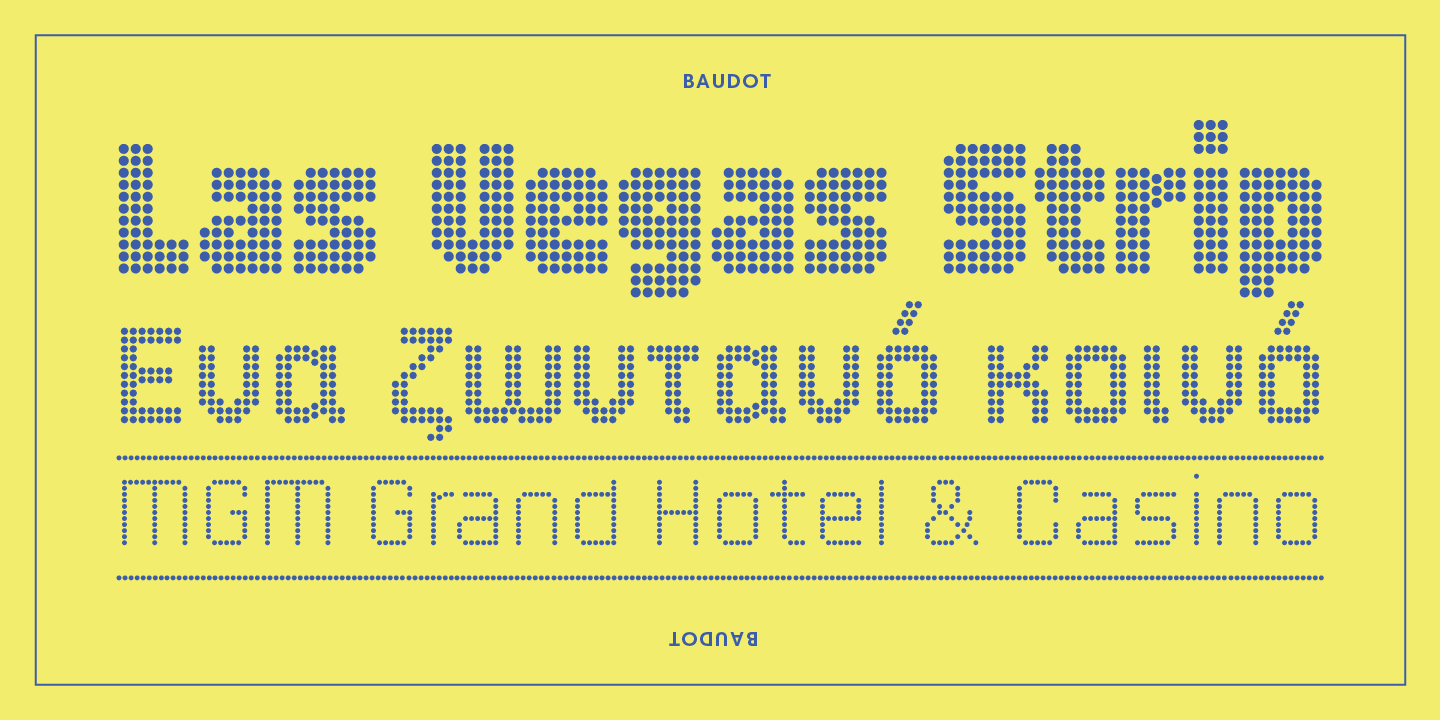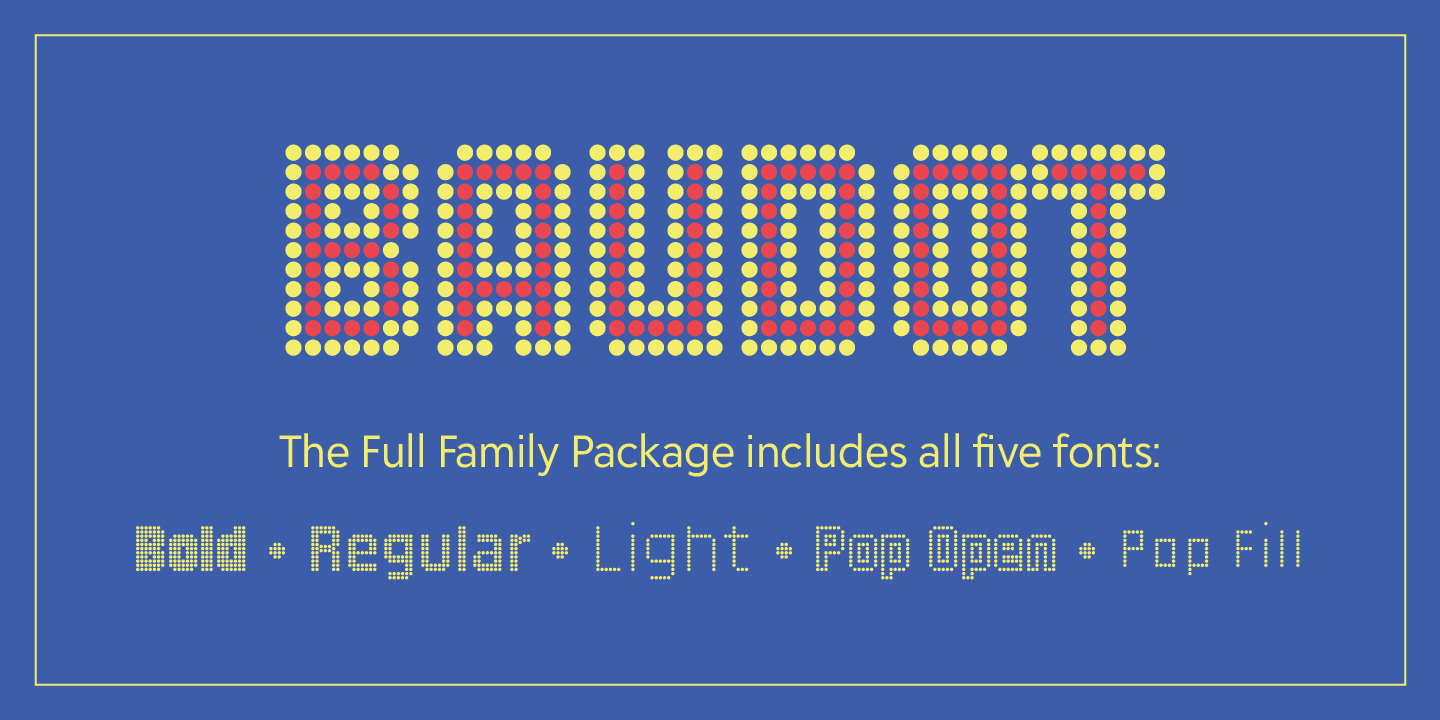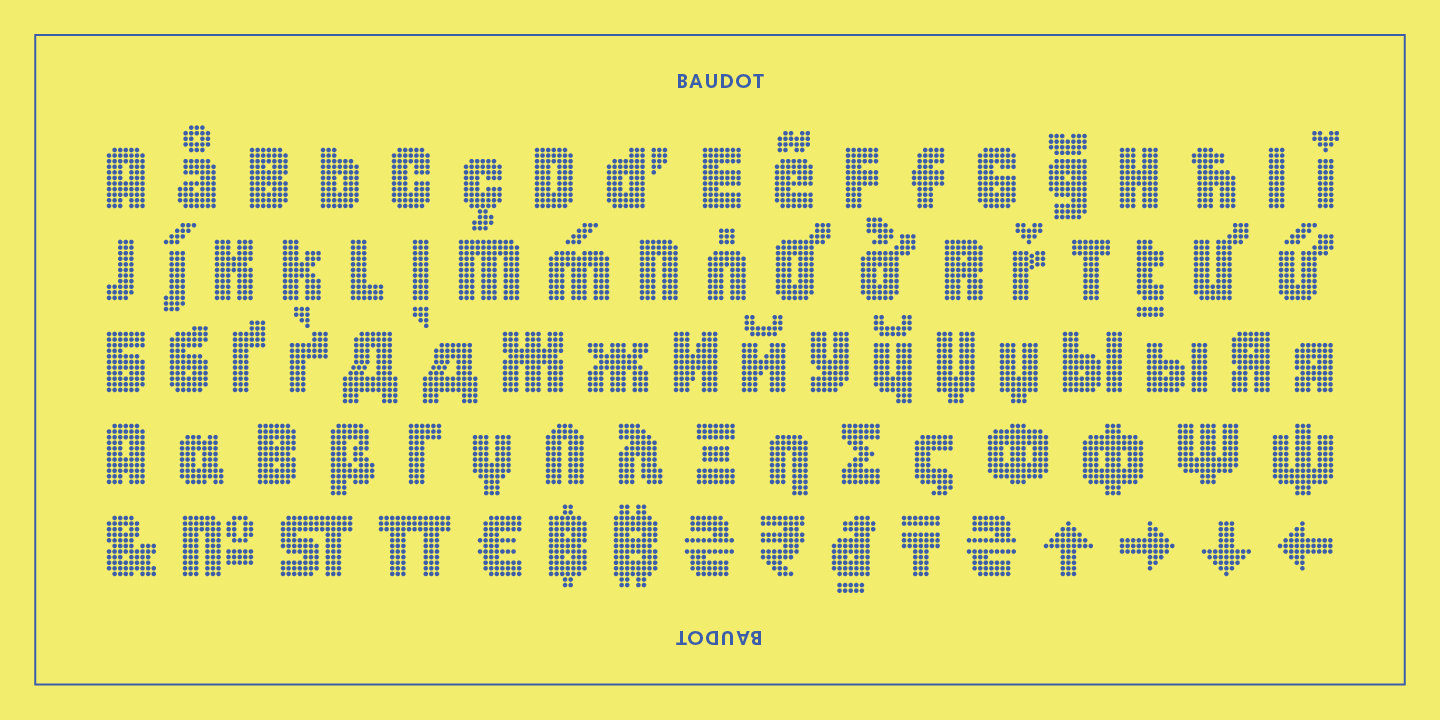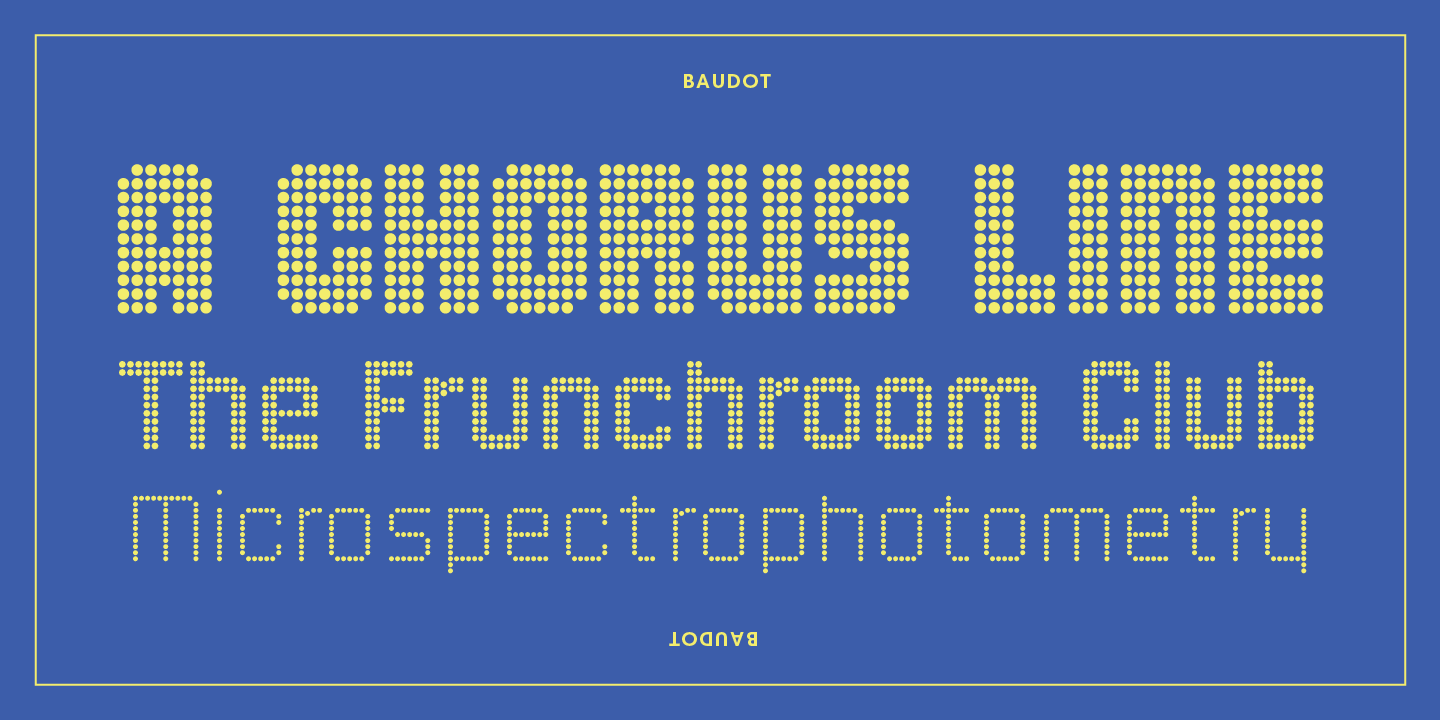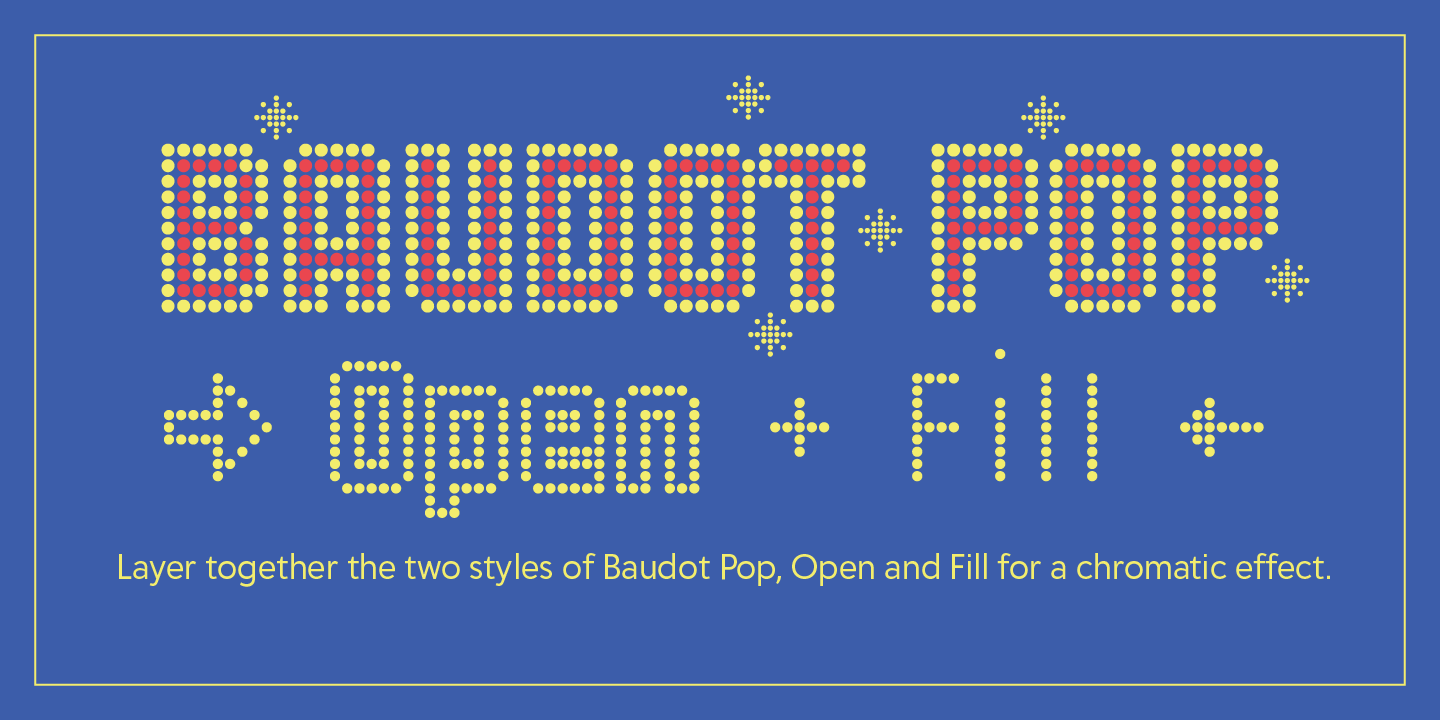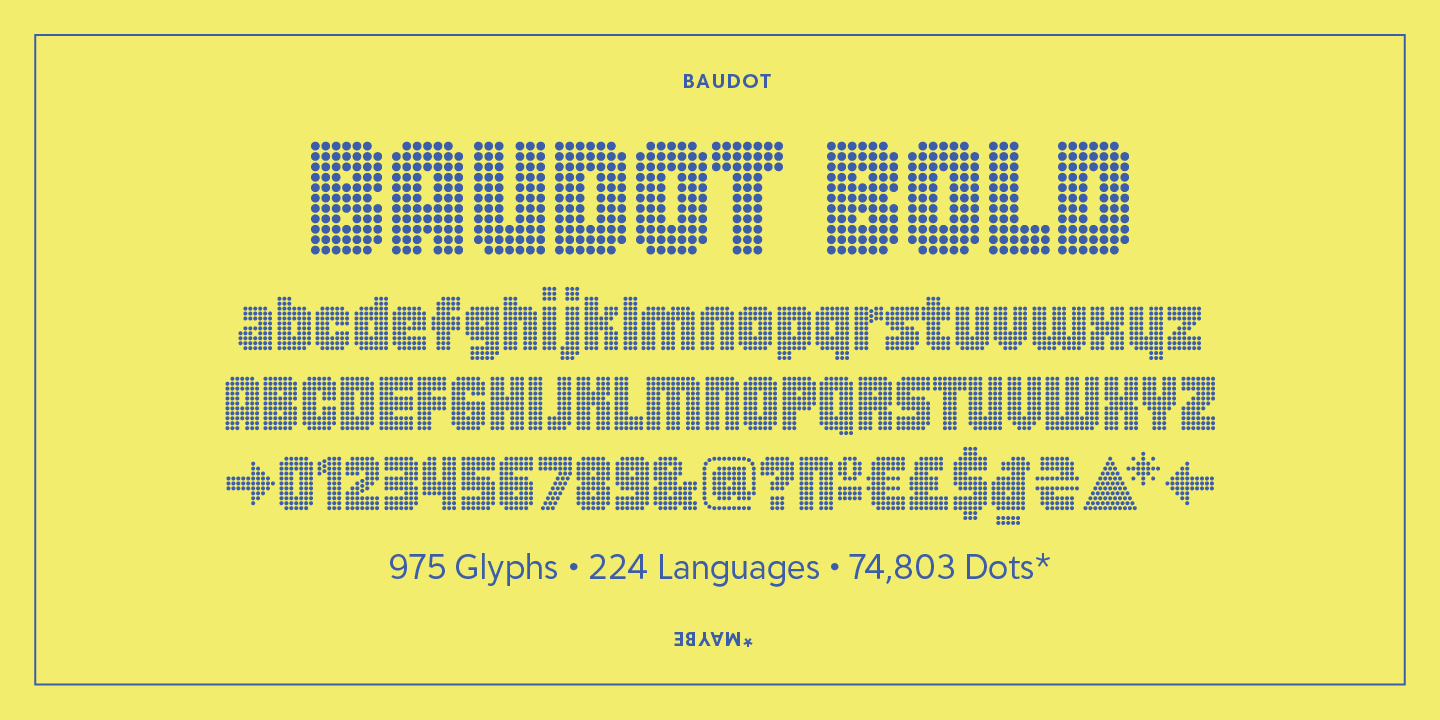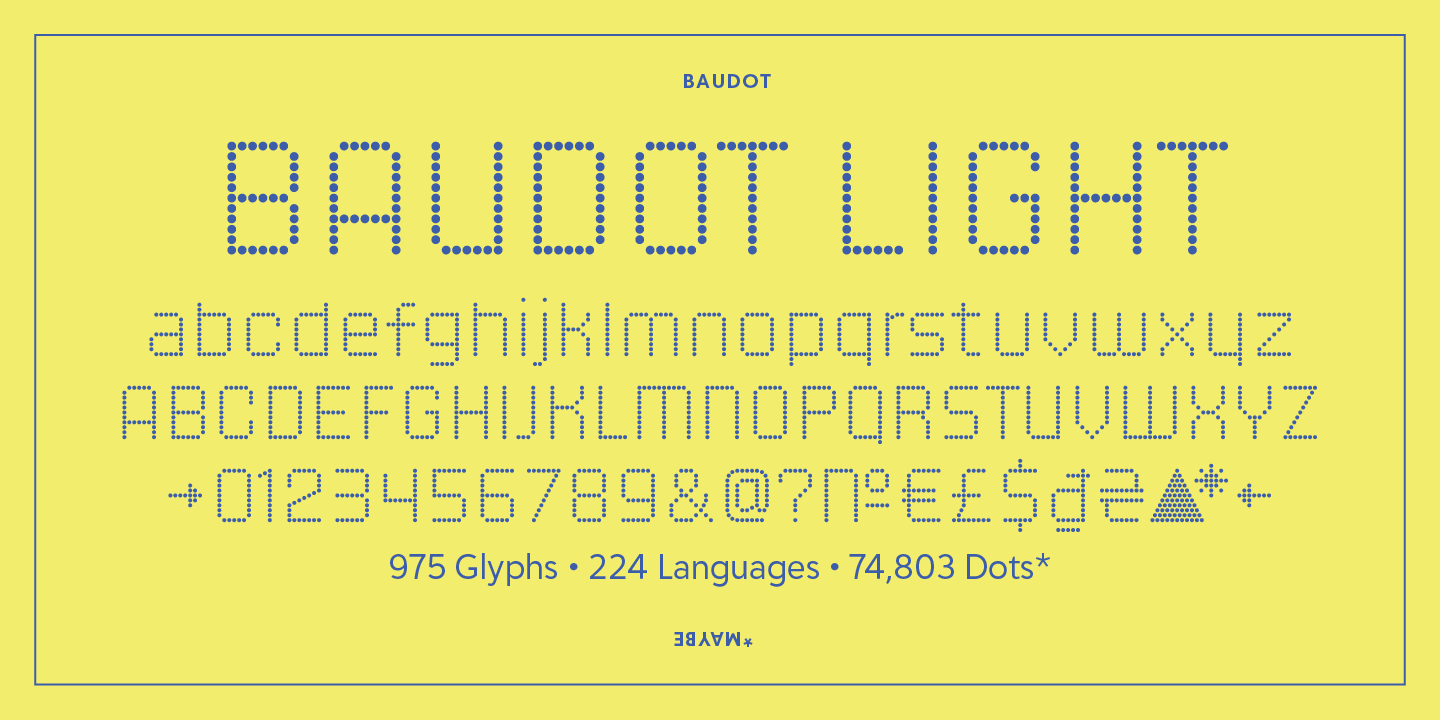
Baudot
About Baudot
Originally published in 1972 as dry transfer type, this unique design was inspired by the bright lights of Las Vegas and graced posters, magazine and album covers in the ?70s and ?80s. This remix, dubbed ?Baudot? [bo?do], has three weights plus two styles…